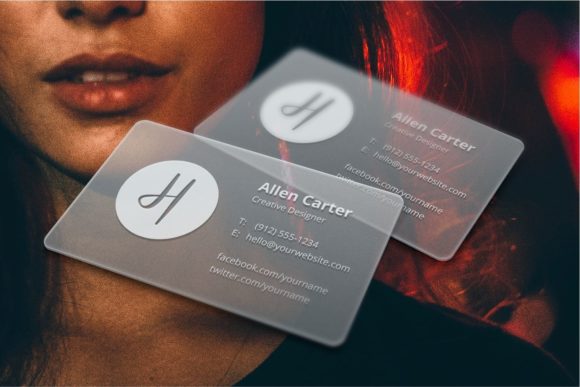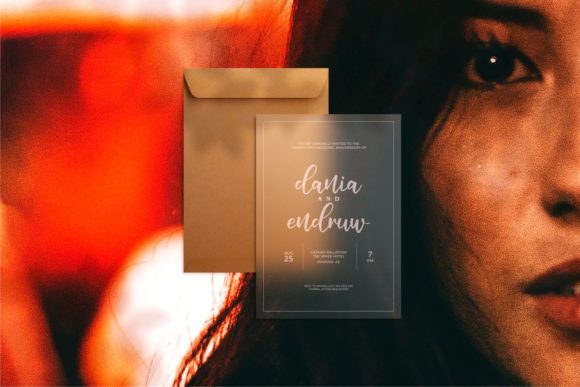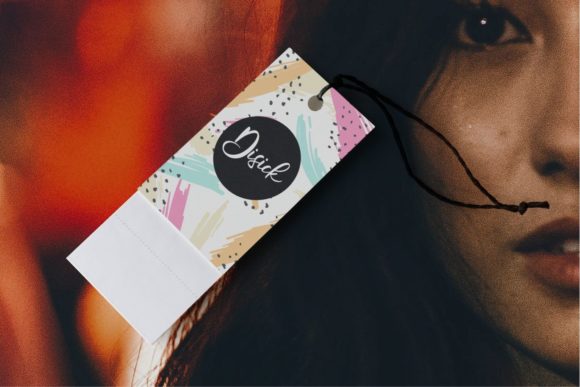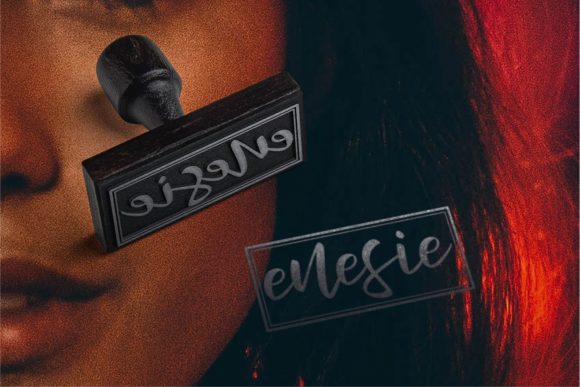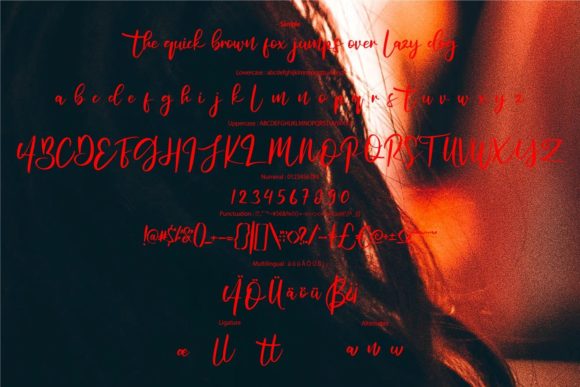
Introducing Arsha Font: The Ultimate Modern Script Font for Designers and Crafters
Are you tired of using the same old fonts in your designs? Look no further! Arsha Font is here to revolutionize your creative projects with its modern, whimsical, and relaxed paint-brushed script style. This stunning font is designed to add a personal and realistic feel to your designs, making it perfect for designers and crafters who want to stand out from the crowd.
The Authentic Handwritten Look and Feel of Arsha Font
Arsha Font boasts an authentic handwritten look and feel that is sure to capture the hearts of designers and crafters alike. Its unique paint-brushed script style gives it a distinctive and charming personality that is perfect for creating spectacular designs. Whether you’re working on a branding project, a craft project, or a digital design, Arsha Font is sure to add a touch of personality and whimsy to your work.
The Versatility of Arsha Font
One of the best things about Arsha Font is its incredibly versatile style. This font can be used in a wide range of design projects, from elegant wedding invitations to playful craft projects. Its relaxed and modern style makes it perfect for designers who want to create unique and eye-catching designs that stand out from the crowd. Whether you’re looking to create a bold statement or a subtle design, Arsha Font is the perfect choice.
Why Designers and Crafters Love Arsha Font
So, why do designers and crafters love Arsha Font? For starters, its authentic handwritten look and feel adds a personal touch to any design project. Additionally, its versatility makes it perfect for a wide range of projects, from digital designs to craft projects. Here are just a few reasons why designers and crafters are falling in love with Arsha Font:
- Unique and eye-catching: Arsha Font is a one-of-a-kind font that is sure to grab attention and make your designs stand out.
- Authentic handwritten look: The font’s authentic handwritten look and feel adds a personal touch to any design project.
- Versatile: Arsha Font can be used in a wide range of design projects, from elegant wedding invitations to playful craft projects.
How to Use Arsha Font in Your Designs
Using Arsha Font in your designs is easy! Here are a few tips to get you started:
- Pair it with other fonts: Arsha Font pairs perfectly with other fonts, such as sans-serif fonts and serif fonts.
- Experiment with colors: Arsha Font looks great in a variety of colors, from bold and bright to soft and pastel.
- Add some texture: Adding texture to your design can help bring out the authentic handwritten look and feel of Arsha Font.
In conclusion, Arsha Font is a modern, whimsical, and relaxed paint-brushed script font that is perfect for designers and crafters who want to add a personal and realistic feel to their designs. Its authentic handwritten look and feel, versatility, and ease of use make it a must-have font for any creative project. So why wait? Fall in love with Arsha Font today and start creating spectacular designs that stand out from the crowd!